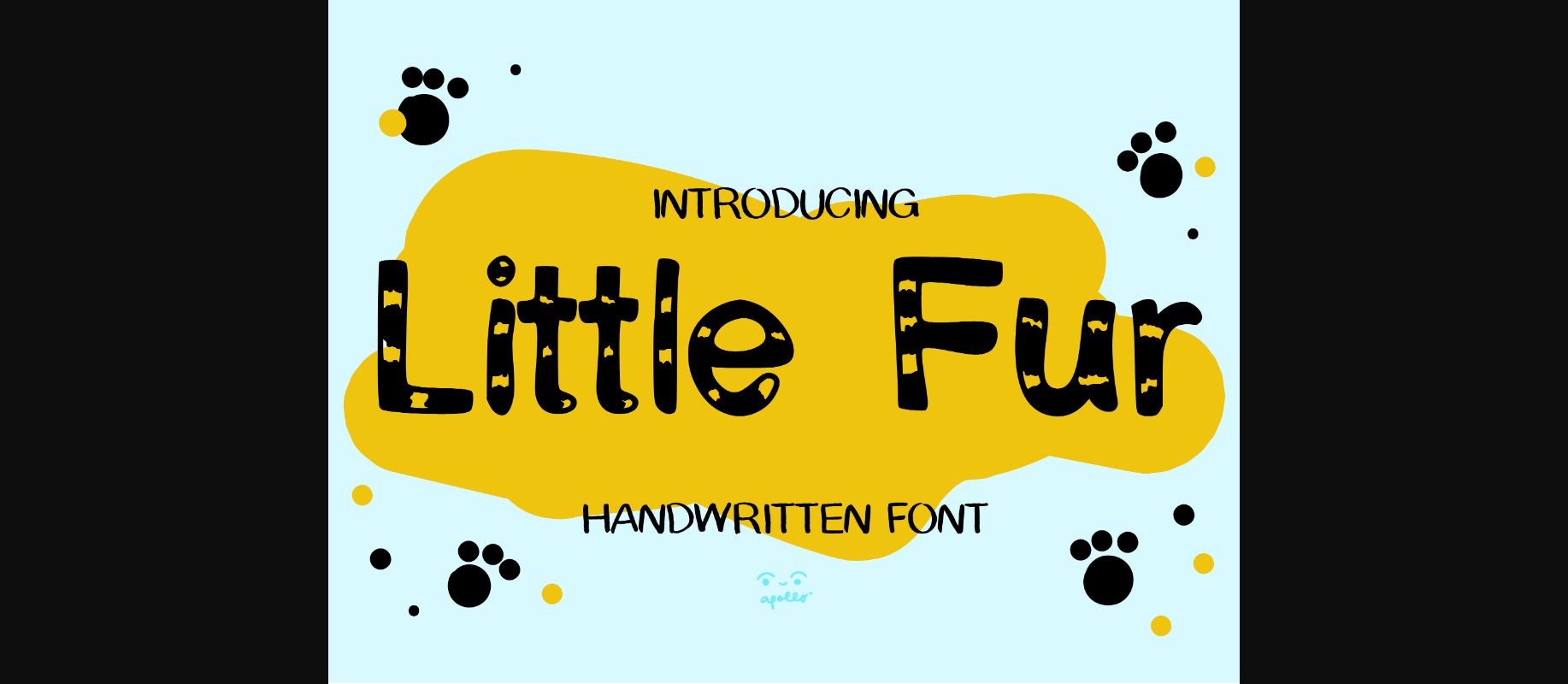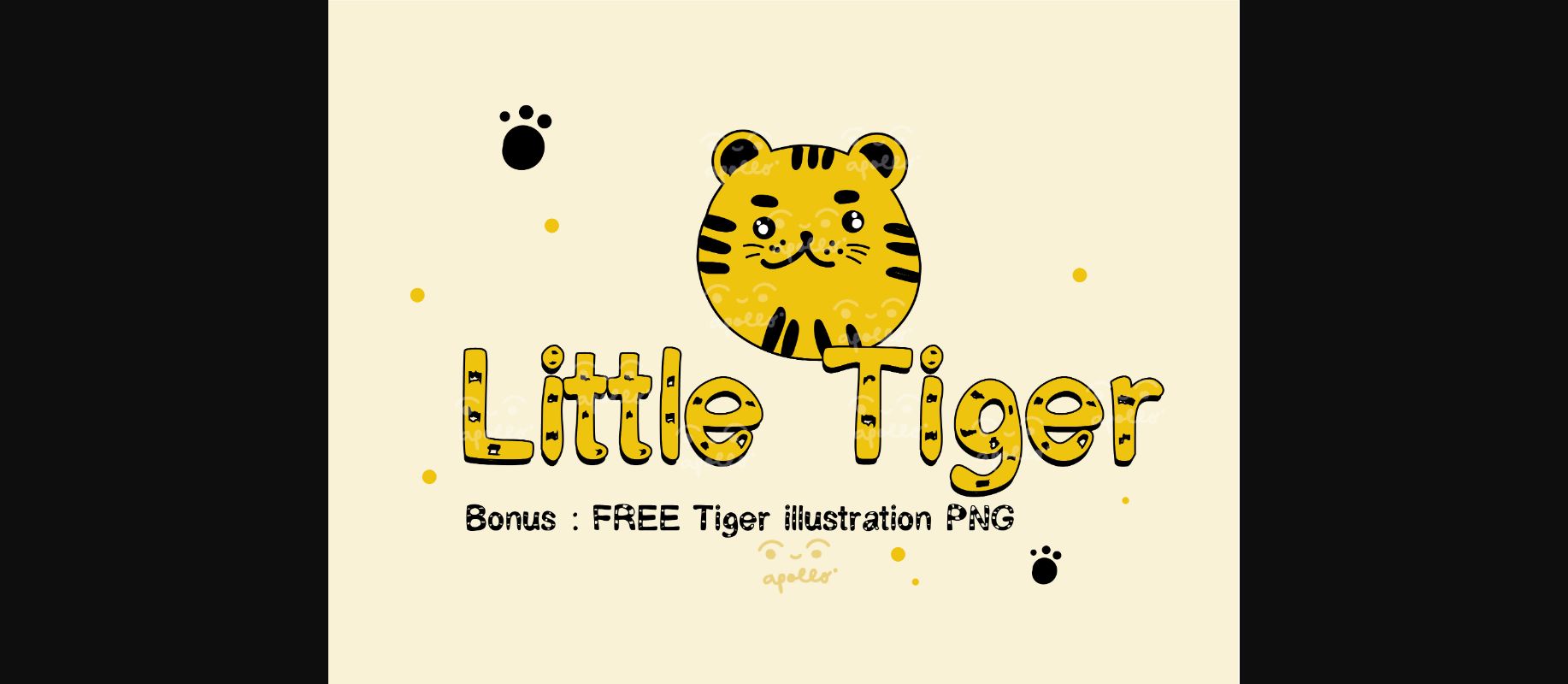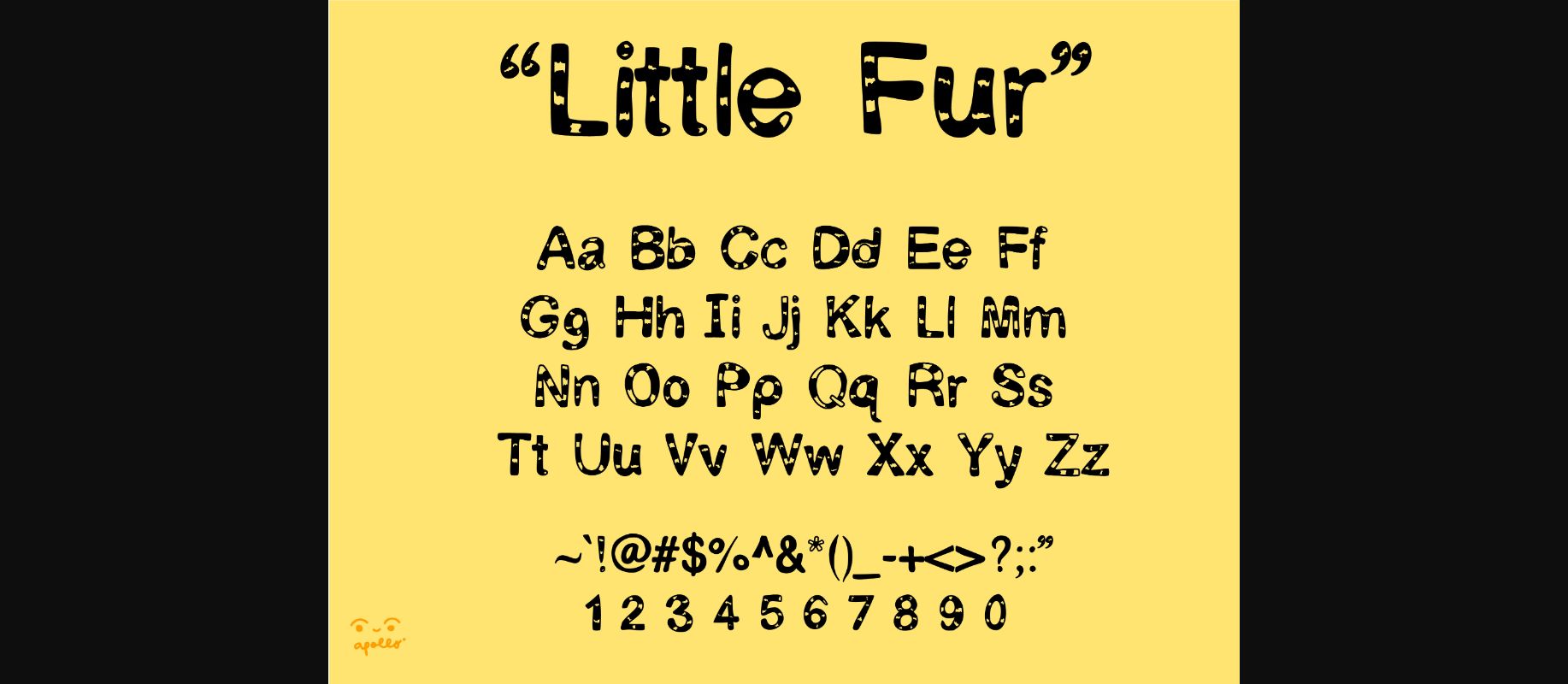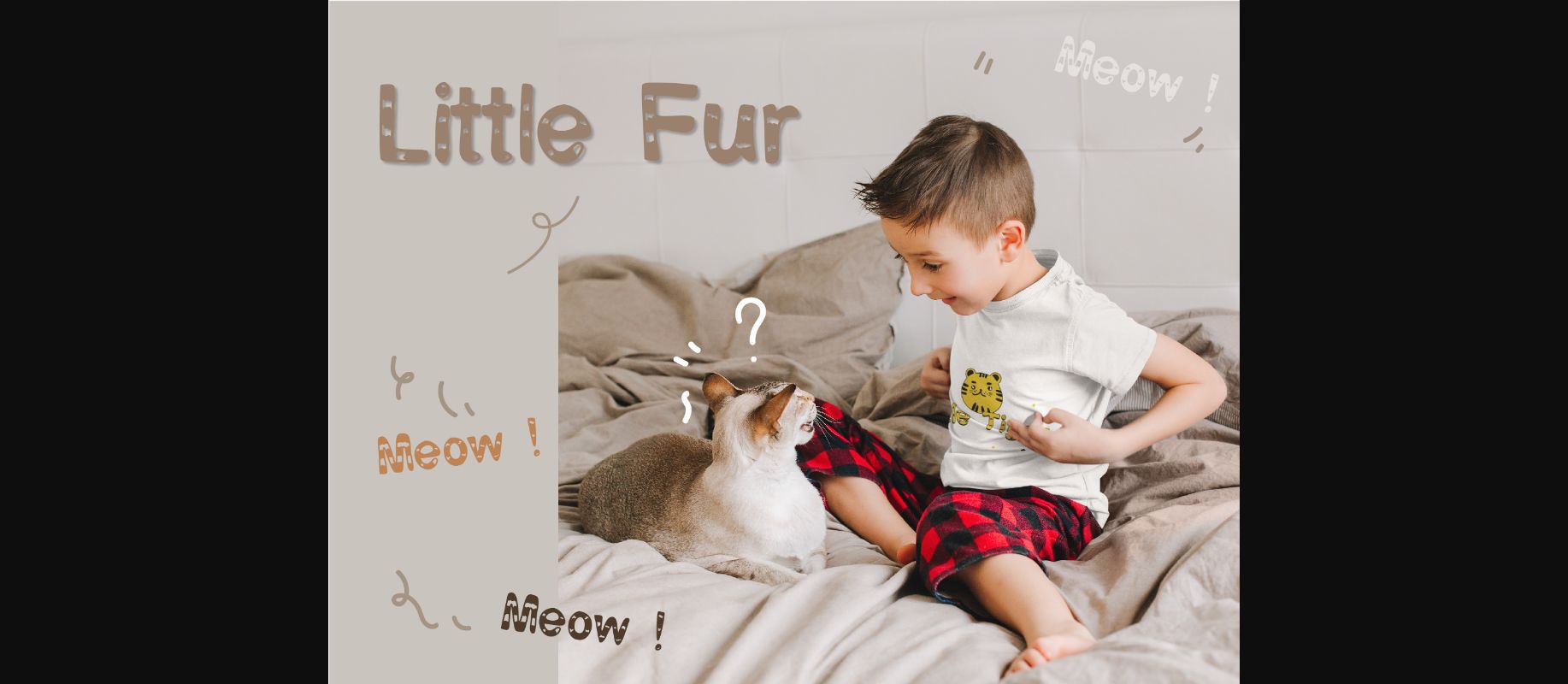
Little Fur Font
About Little Fur Font
Little fur is an adorable decorative font suitable for children-related designs. Its letters are hand-drawn and perfect for printable items, cards, or anything else related to fluffy things. Get creative, and use this cute font on your favorite products!